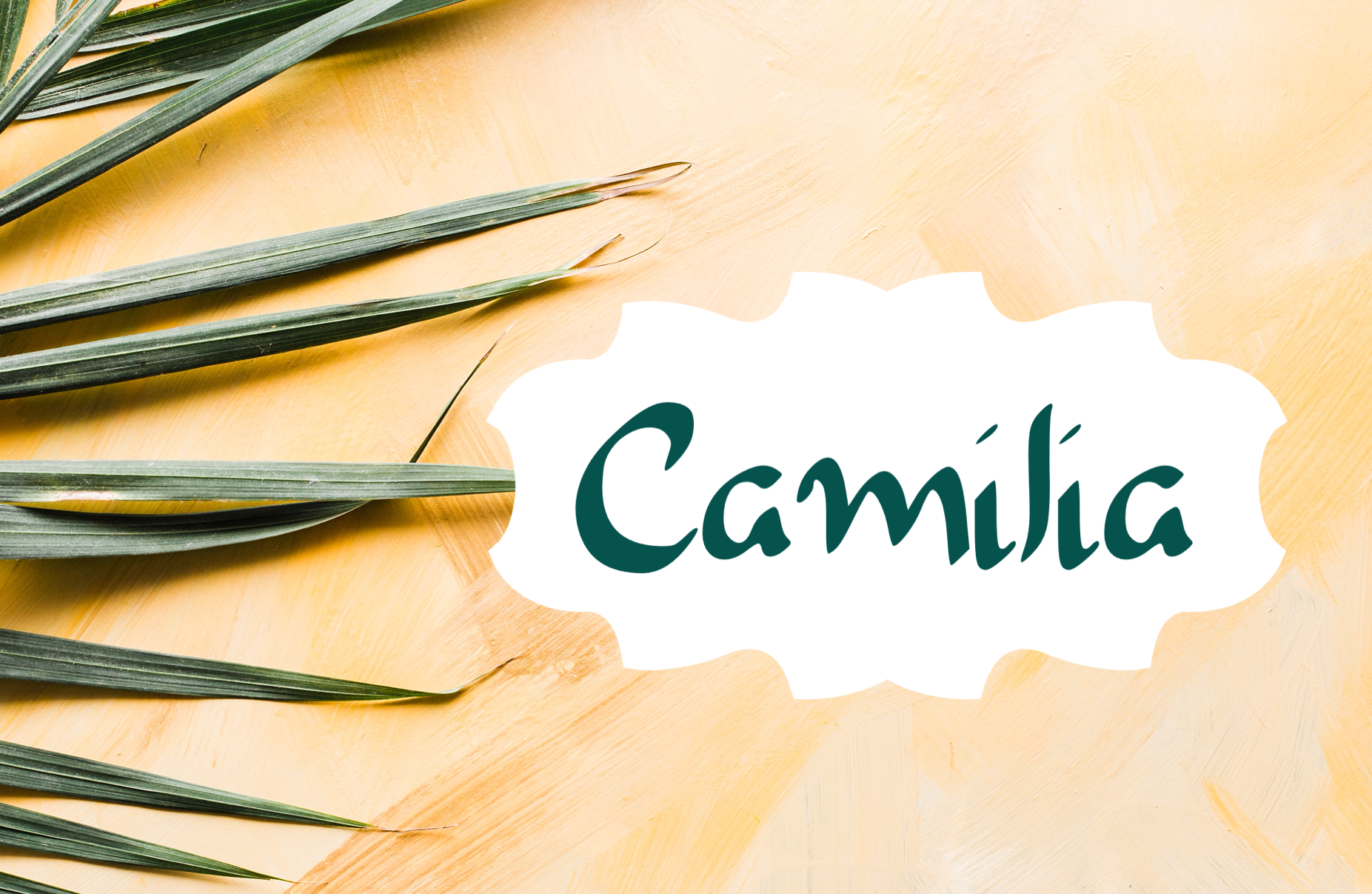
Camilia - Handwritten Script Font
Camilia is a handwritten font. Ideal for logos, handwritten quotes, product packaging, header, poster, merchandise, social media and greeting cards
Features : Basic Latin A-Z and a-z Numbers Punctuation